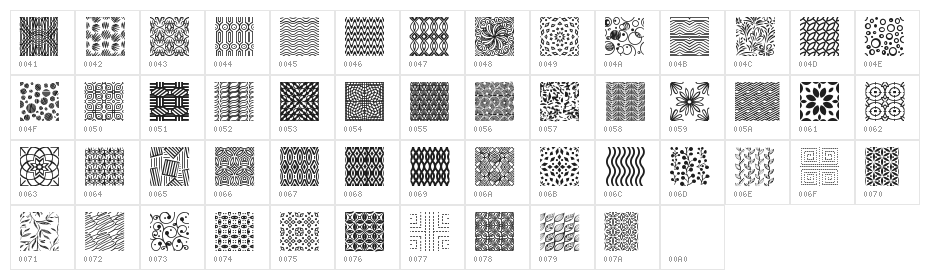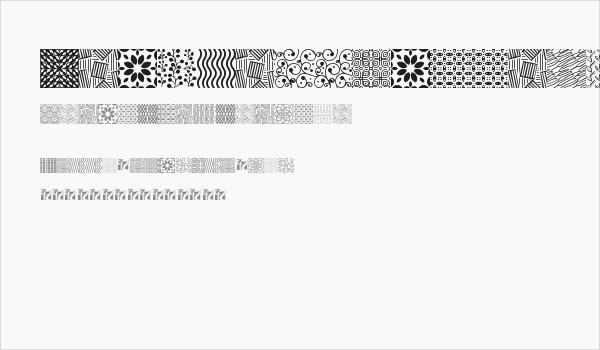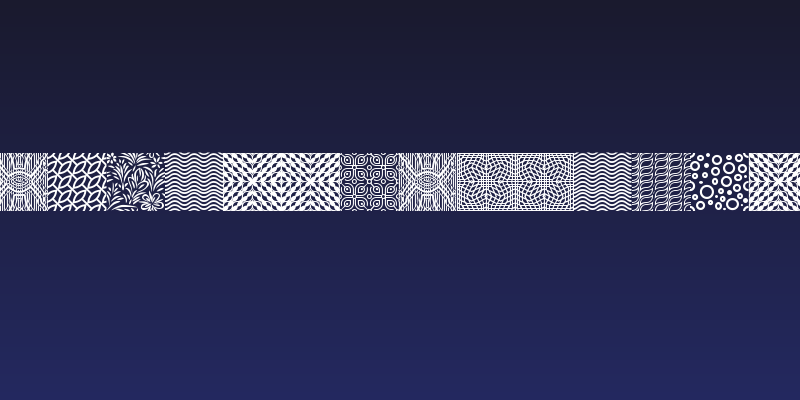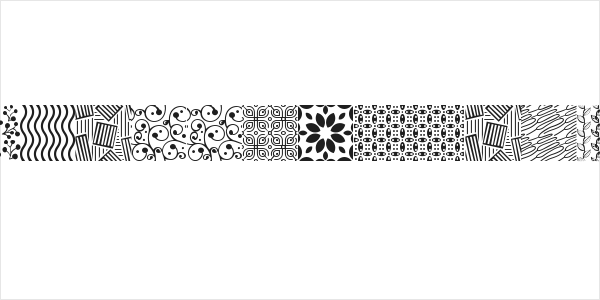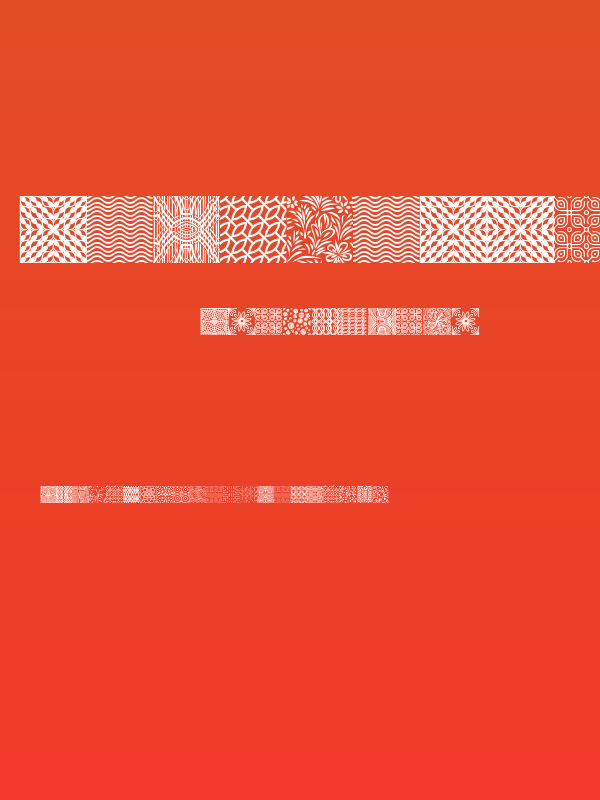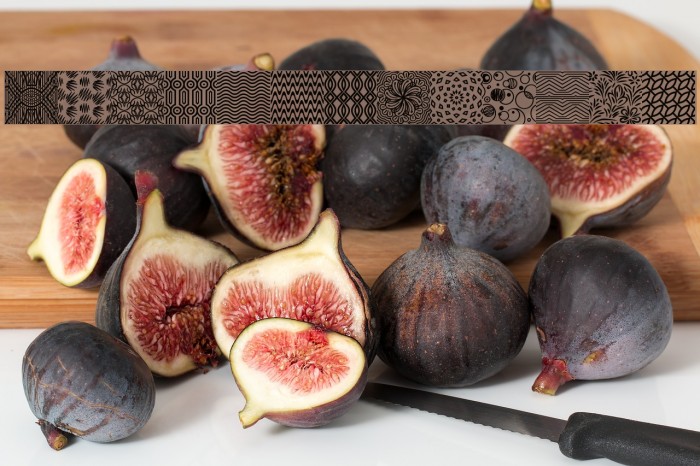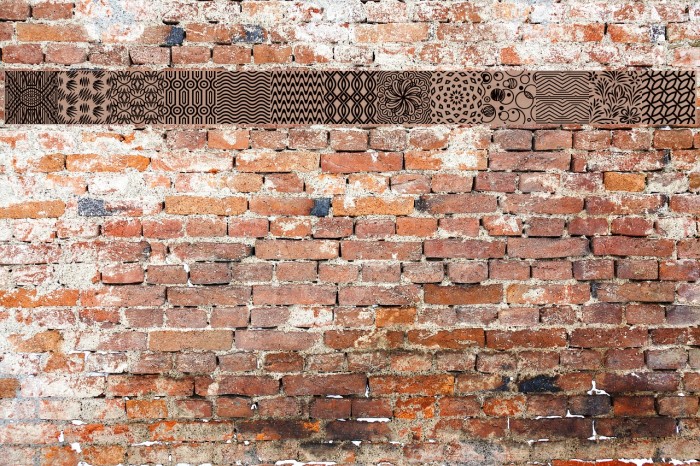
Seamless Patterns II Font
Seamless Patterns II Description
A collection of seamless black and white patterns featuring geometric, floral, and abstract motifs. Each character is represented by a unique tileable pattern, ranging from simple lines and waves to intricate ornamental designs.
| Overall Style | Decorative, Ornamental, Modern |
| Use Case | Backgrounds, Borders, Decorative elements |
| Proposed Projects | Backgrounds, packaging, textiles, digital wallpapers, branding, decorative borders. |